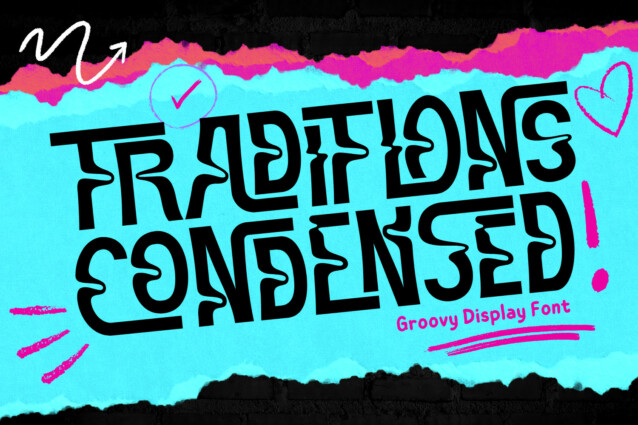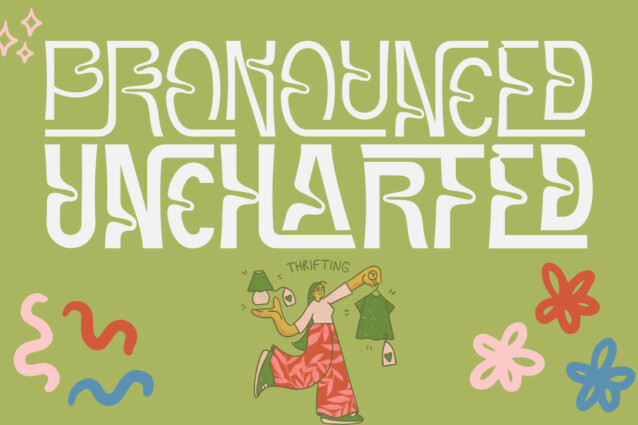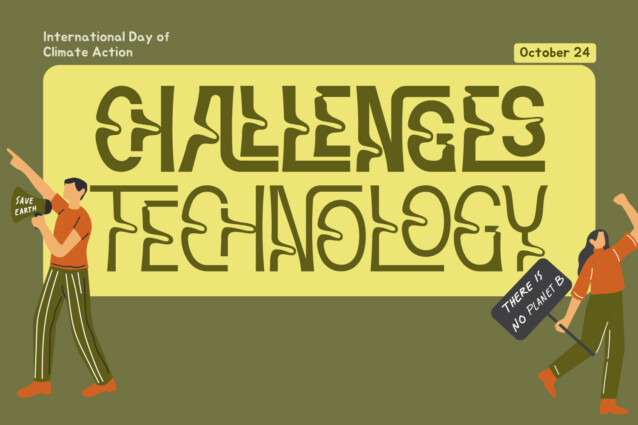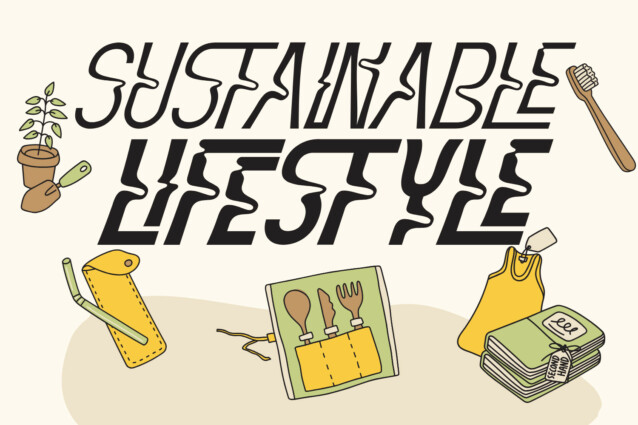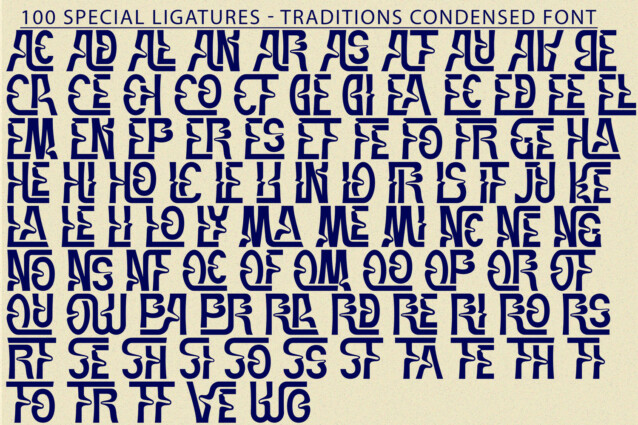
Traditions Condensed Font
Traditions Condensed Font is a groovy display serif font! a typeface with fun and playful looks. It’s the ultimate choice for designers looking to infuse a playful and nostalgic touch into their projects. This type of font perfectly made to be applied especially in storybook children or child theme which is need a standout font, and the other various formal forms such as invitations, labels, logos, magazines, books, greeting / wedding cards, packaging, fashion, make up, stationery, novels, labels or any type of advertising purpose.
Traditions Condensed was built with OpenType features and includes 100 ligatures, alternate, numbers, punctuation, and it also supports other languages.
AC AD AL AN AR AS AT AU AV BE CA CE CH CO CT DE DI EA EC ED EE EL EM EN EP ER ES ET FE FO FR GE HA HE HI HO IE IC IL IN IO IR IS IT JU KE LA LE LI LL LO LY MA ME MI NC ND NE NG NO NT NS OC OF OM ON OO OP OR OT OU OW PA PR RA RD RE RI RO RS RT SE SH SI SO SS ST TA TE TH TI TO TR TT UM UN UR VE WI WO